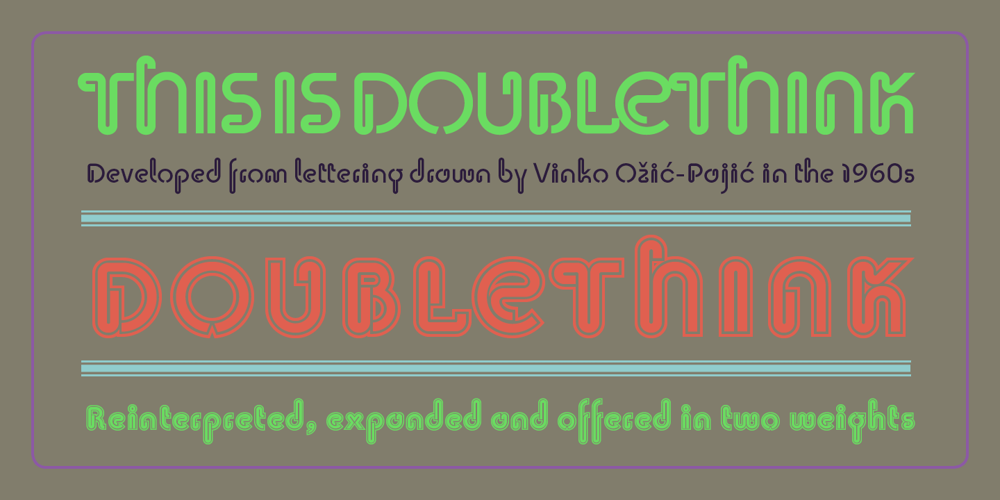
Doublethink Font Family was designed by Marcus Leis Allion, Jonathan Barnbrook and published by Barnbrook Fonts. Doublethink contains 2 styles and family package options. Doublethink was developed from lettering drawn in the 1960s by Vinko Ožić-Pajić and used on the shop fronts of Yugoslavian state-owned clothes company Standard Konfekcija. The original design has been reinterpreted and expanded and is offered as a two weight typeface—Doublethink Medium and Doublethink Bold Inline. Standard Konfekcija was established first as a military fabric company and later became the premier fashion brand outlet in the Communist state of Yugoslavia. It is famous for being the first shop in the country to offer plastic bags (Standard Konfekcija stores ceased trading after the fall of Communism).